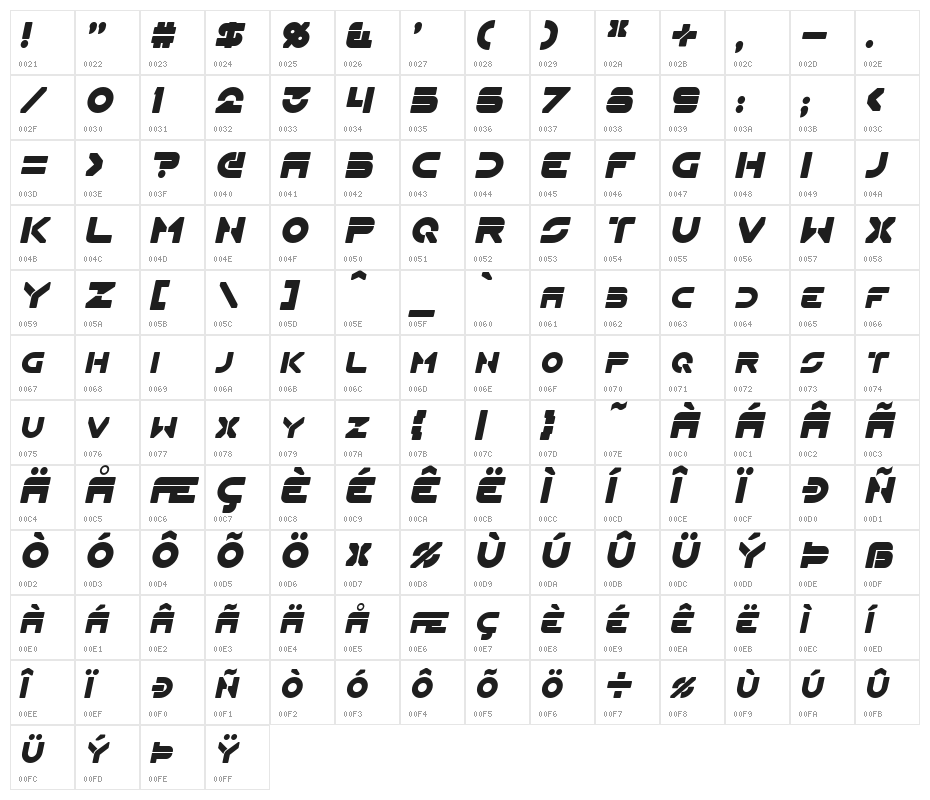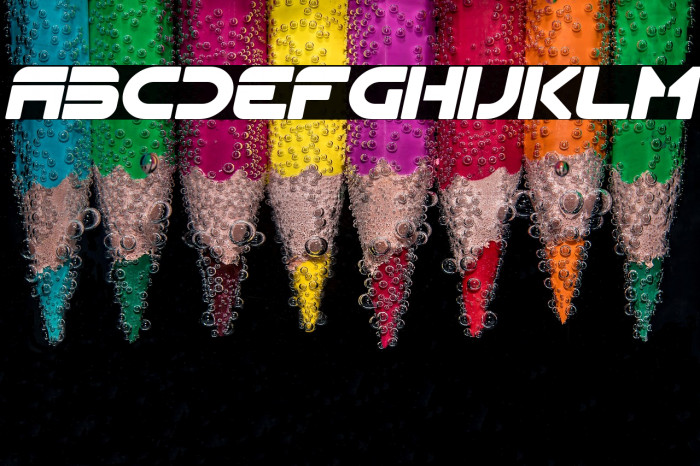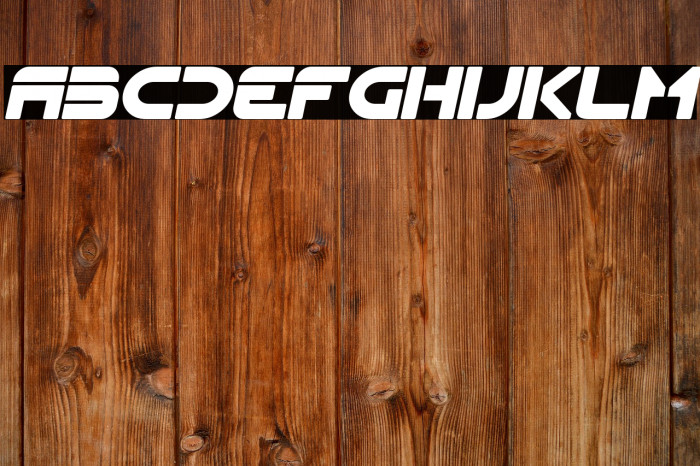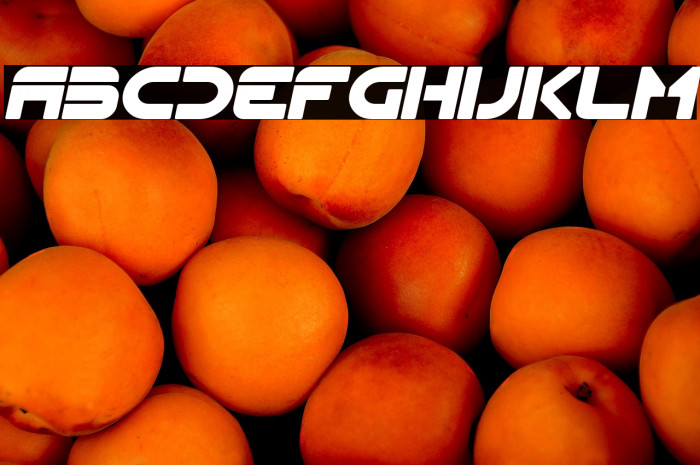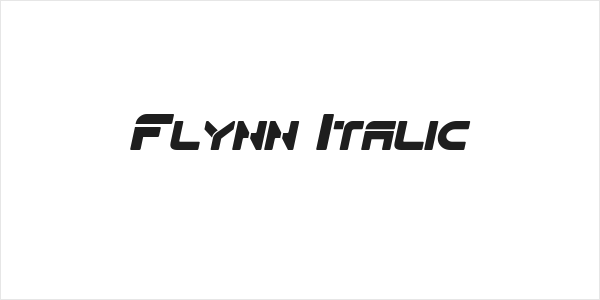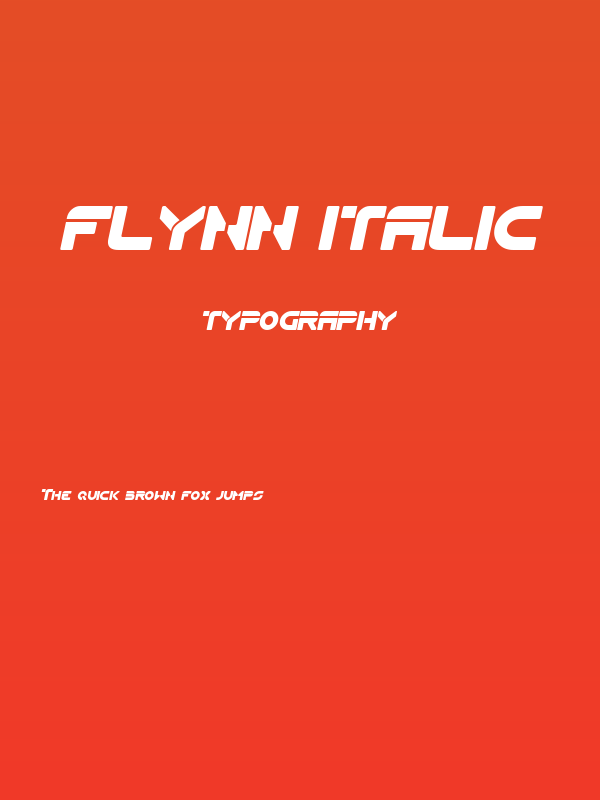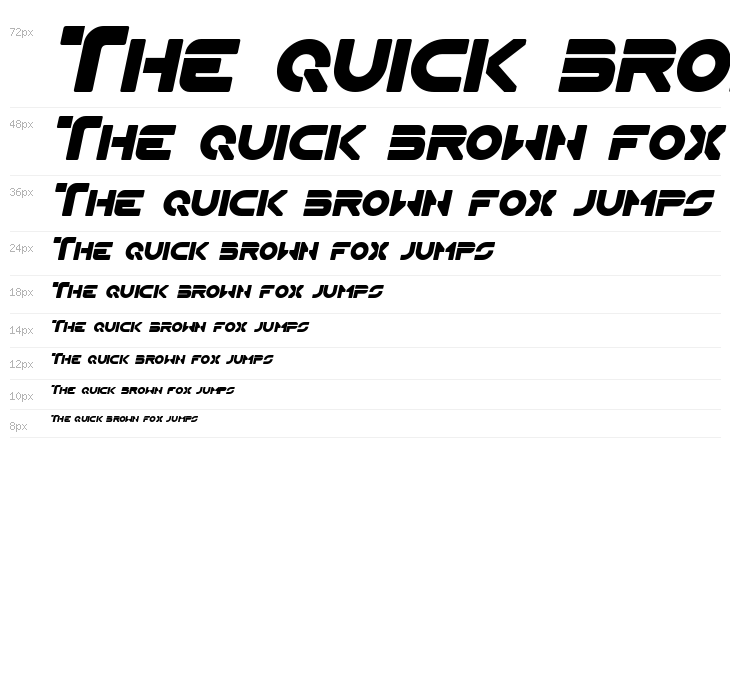
Flynn Italic Font
Flynn Italic Description
This font features a bold and futuristic design with a distinct italic slant, giving it a dynamic and forward-moving appearance. The characters are constructed with thick, uniform strokes and have a geometric style, incorporating sharp angles and smooth curves. The uppercase and lowercase letters maintain a consistent style, while the numerals and special characters complement the overall aesthetic. The font's boldness and unique style make it suitable for attention-grabbing designs.
| Proposed Projects | Ideal for sci-fi themed projects, technology branding, video game titles, and modern advertising campaigns. |